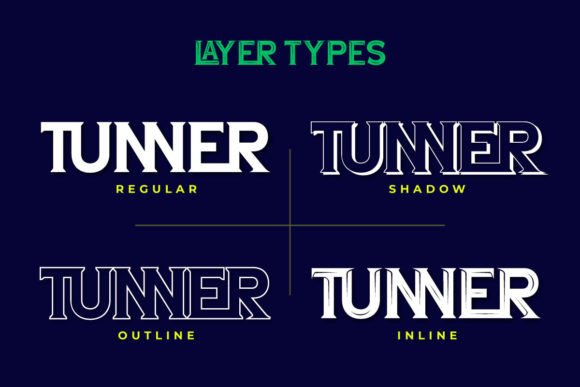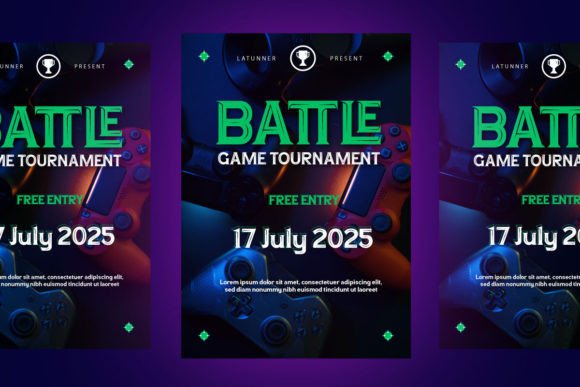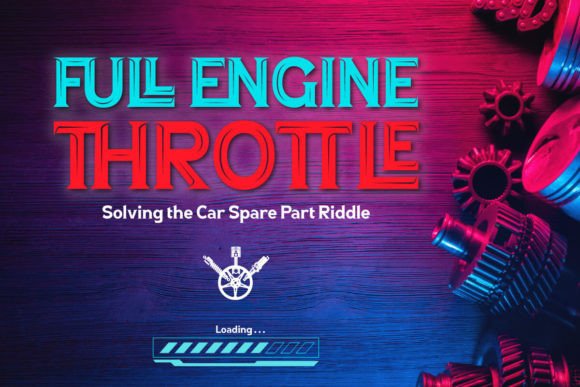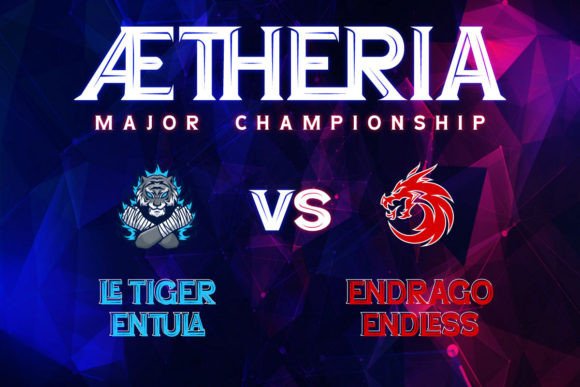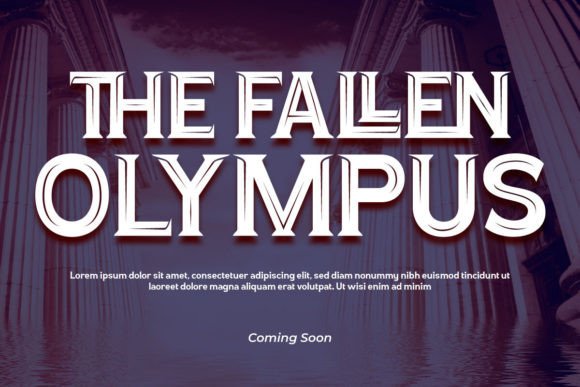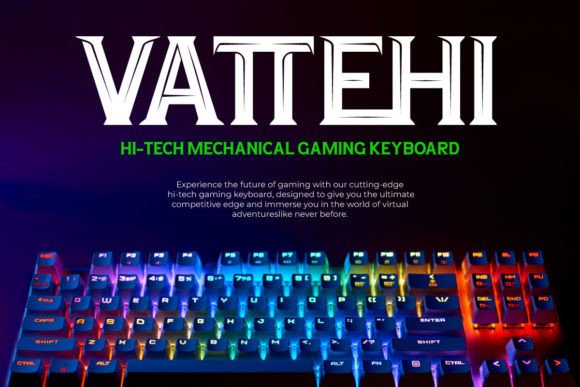
Introduction to Latunner Font
Welcome to the world of typography full of energy and power.
Latunner is a Gaming Display style font that brings a sharp, bold, and fun touch to any of your projects This is the perfect solution to give a futuristic look, as if your project came out of a game or movie screen, and gives a strong visual appeal.
Key Features of Latunner Font
Why Choose Latunner Font?